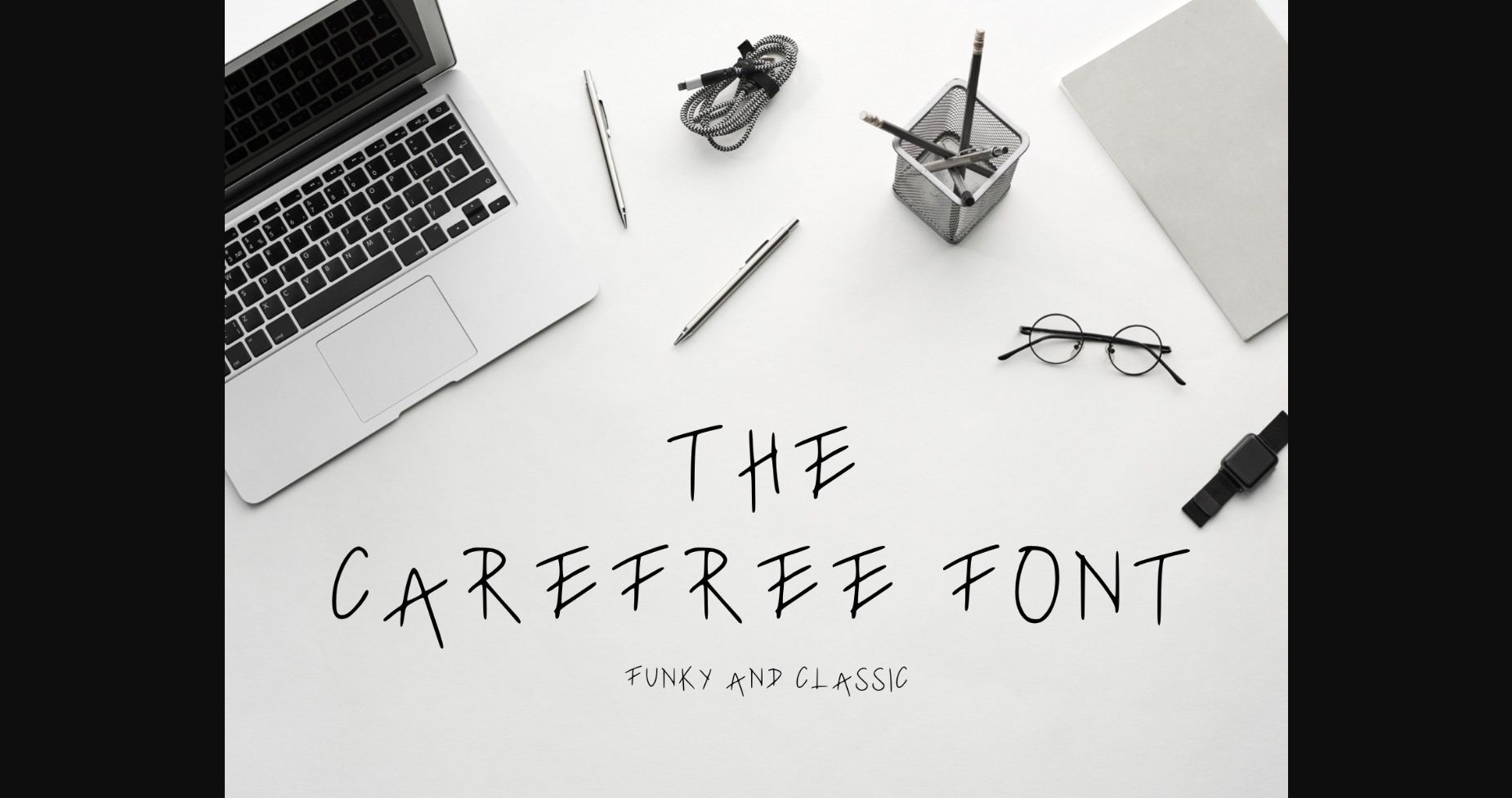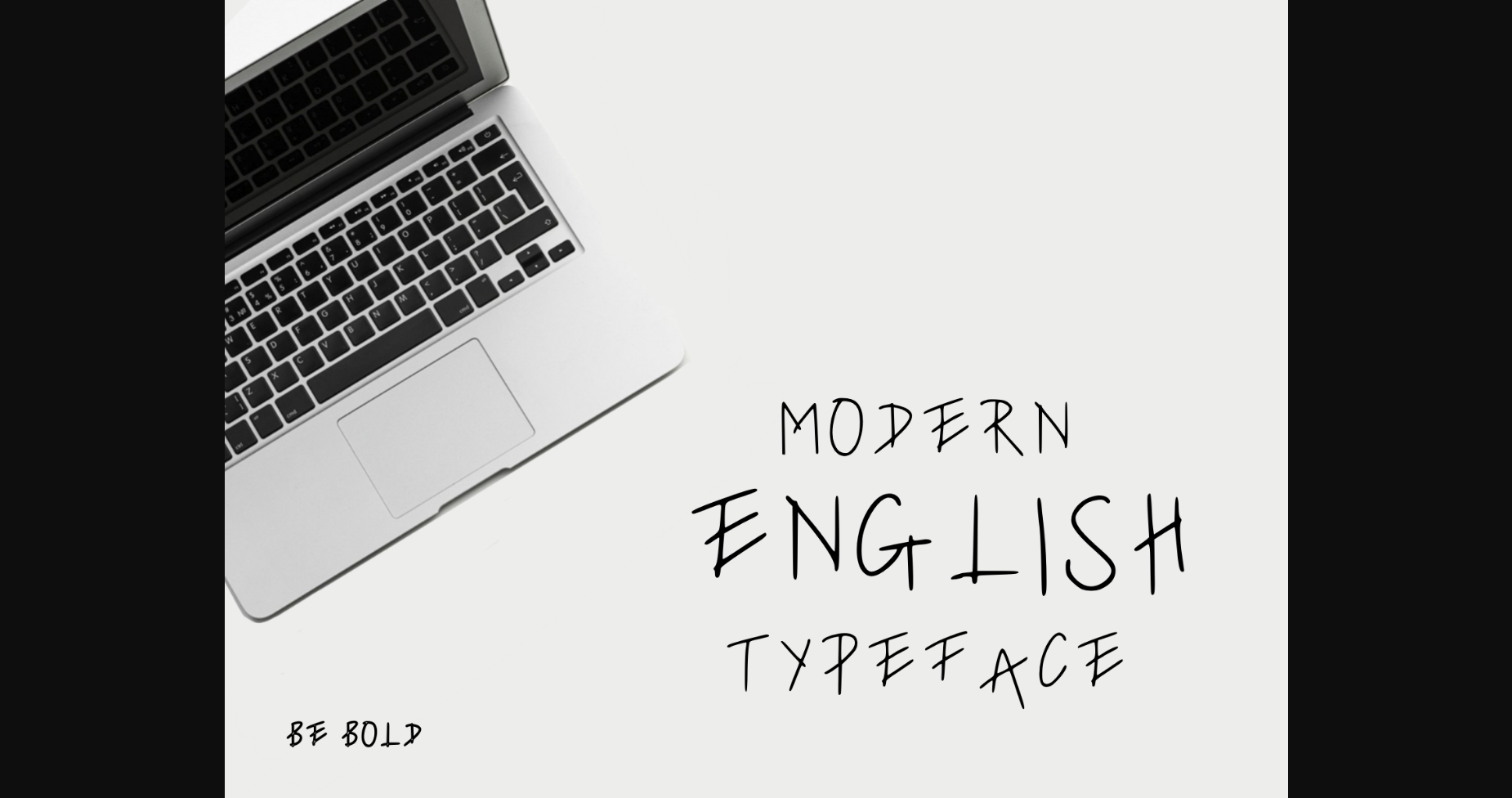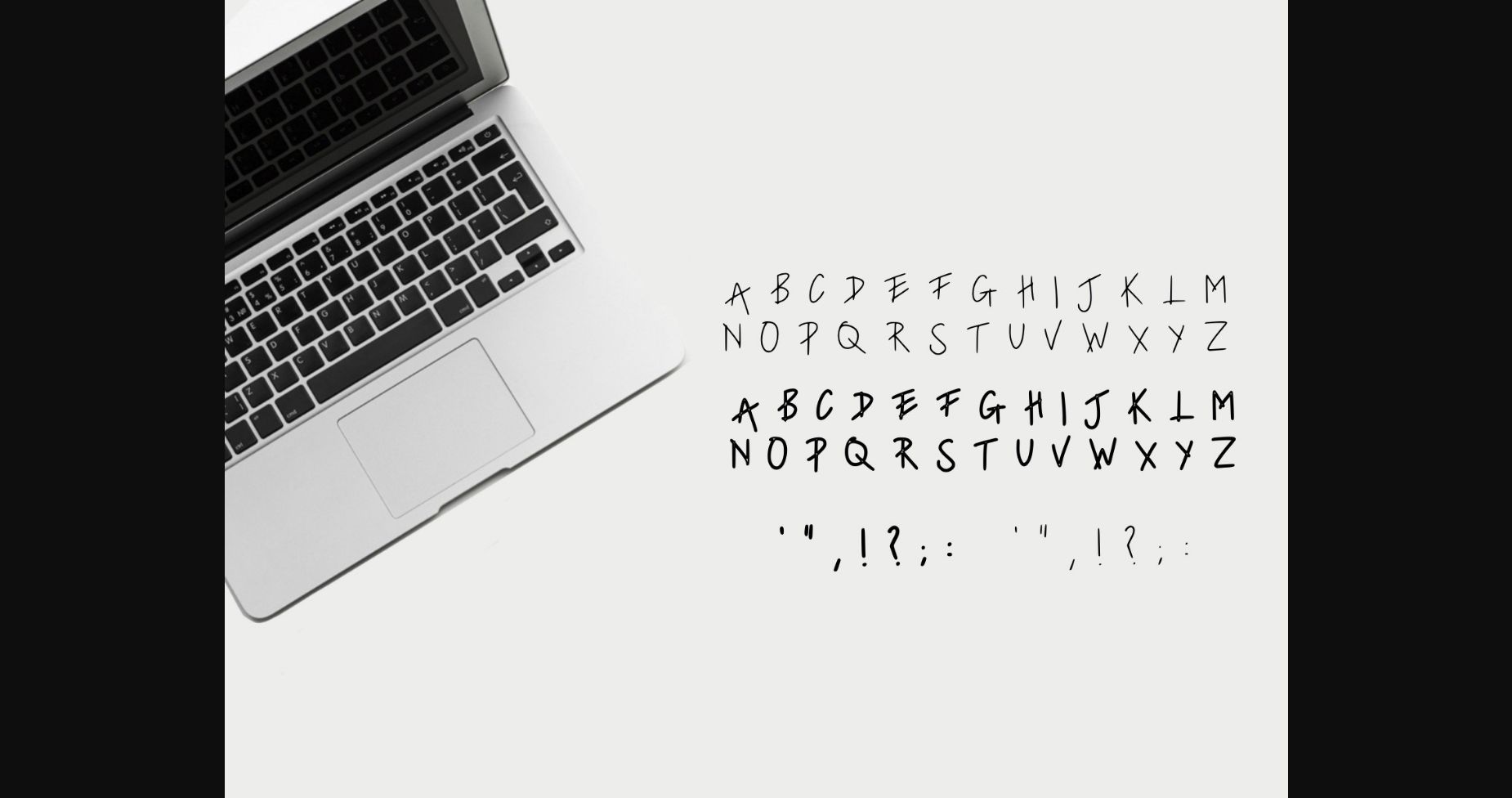
Carefree Font
About Carefree Font
Carefree is a cute and thin sans serif font, carefully created with a touch of creativity. Perfect for quirky projects with a modern touch, this font is sure to impress everyone!